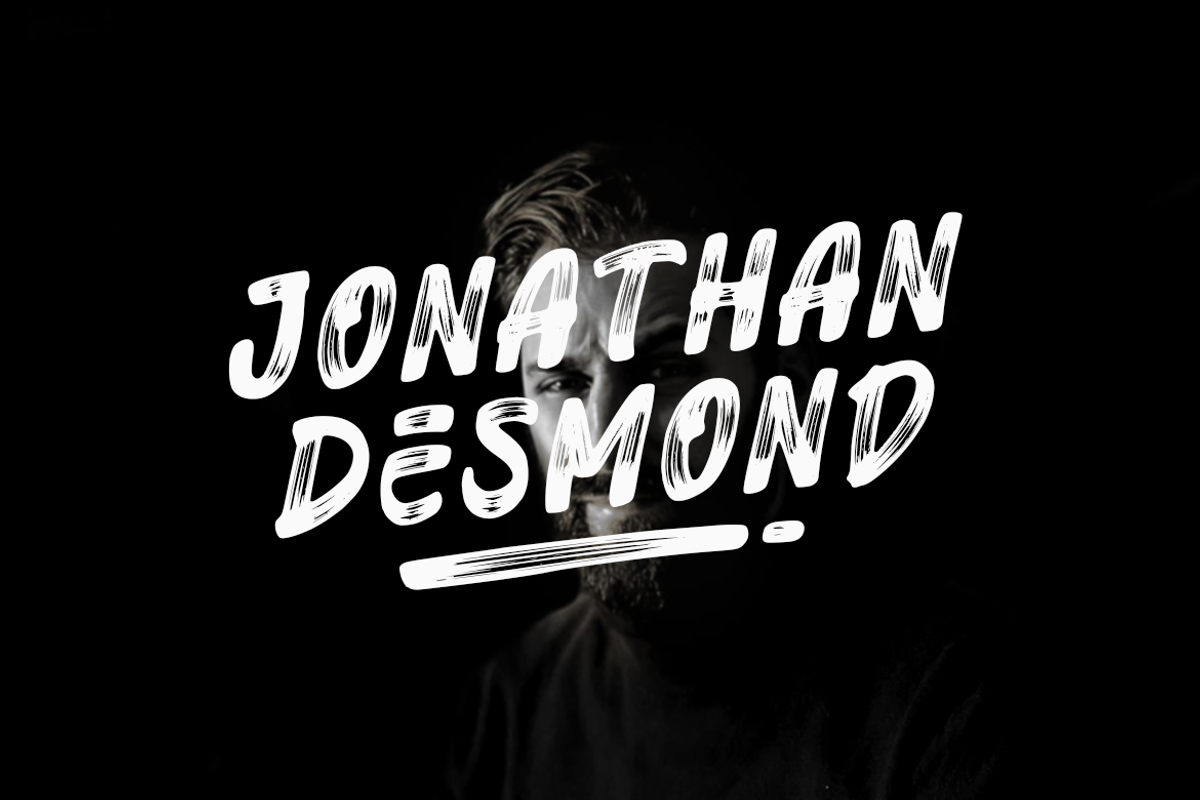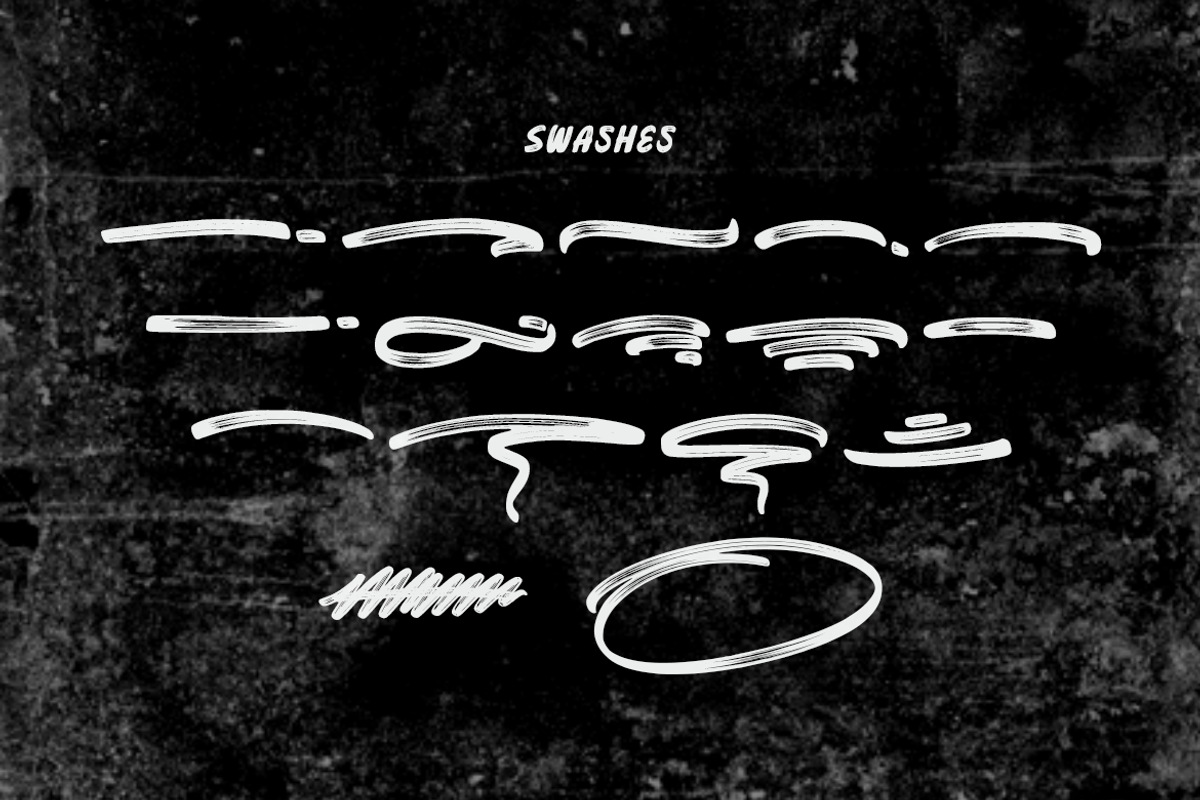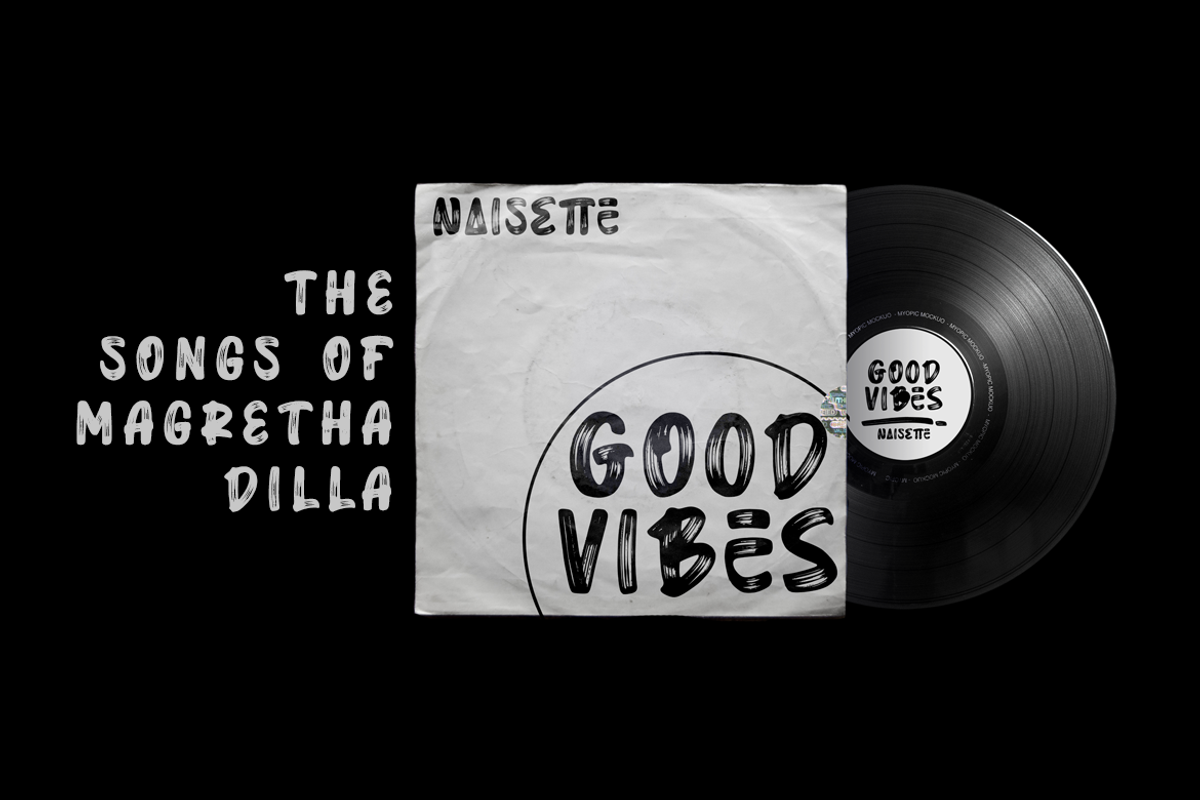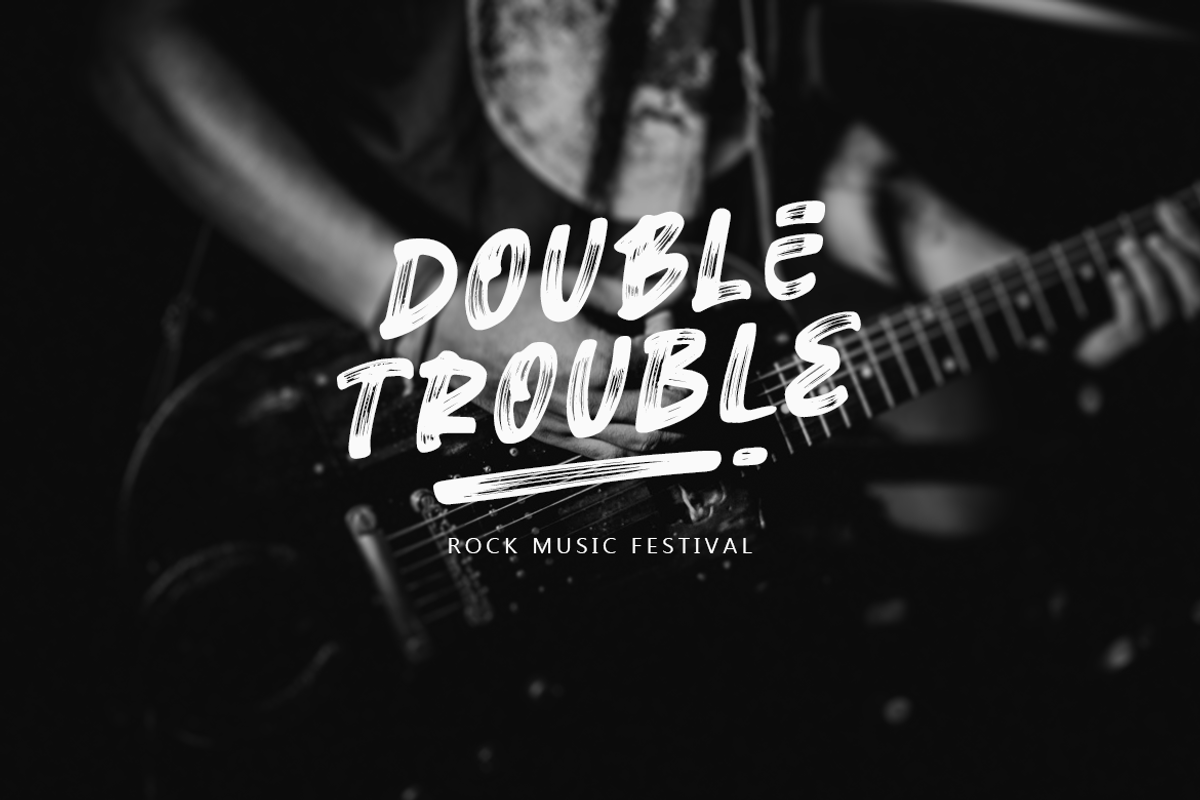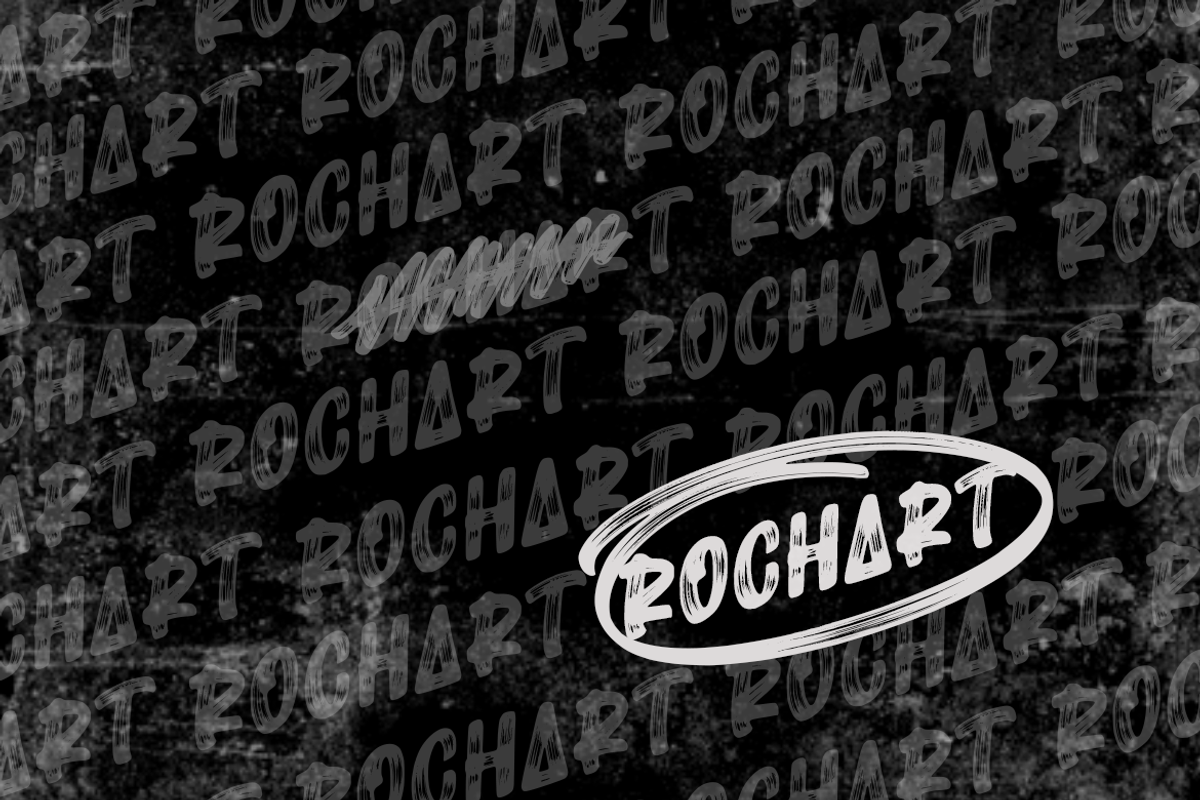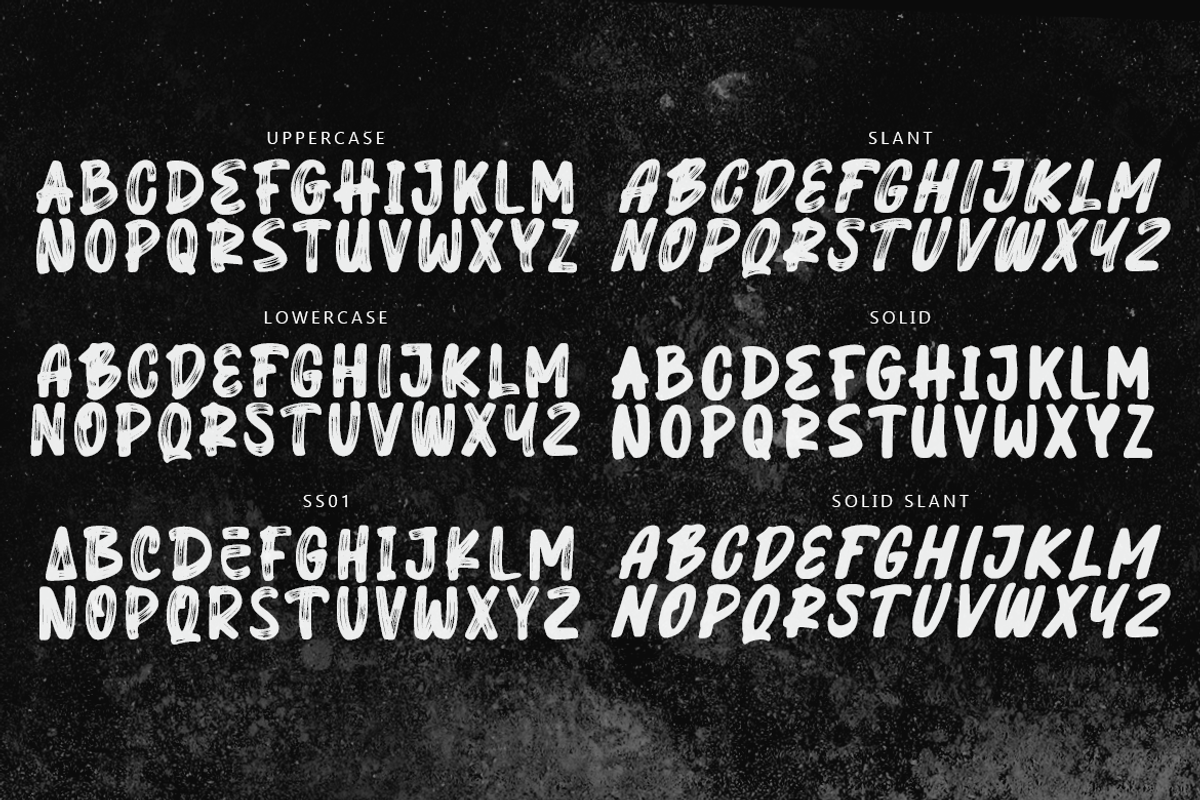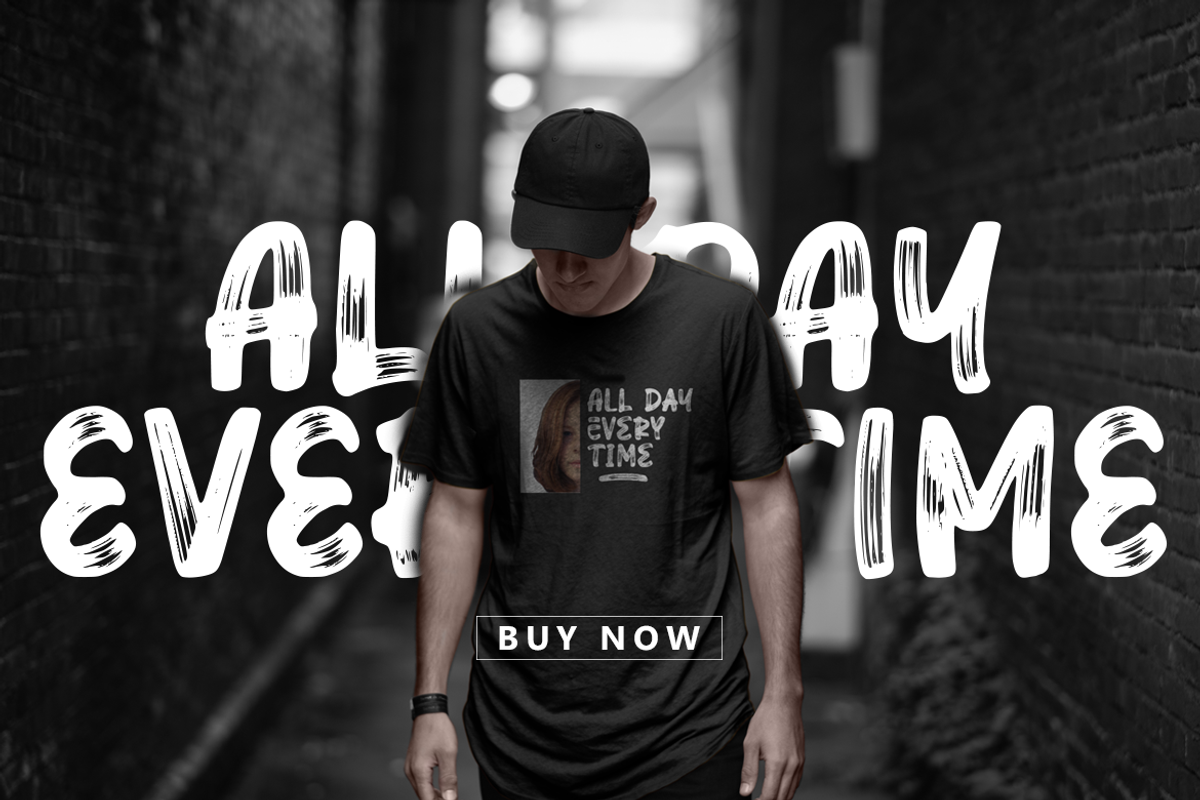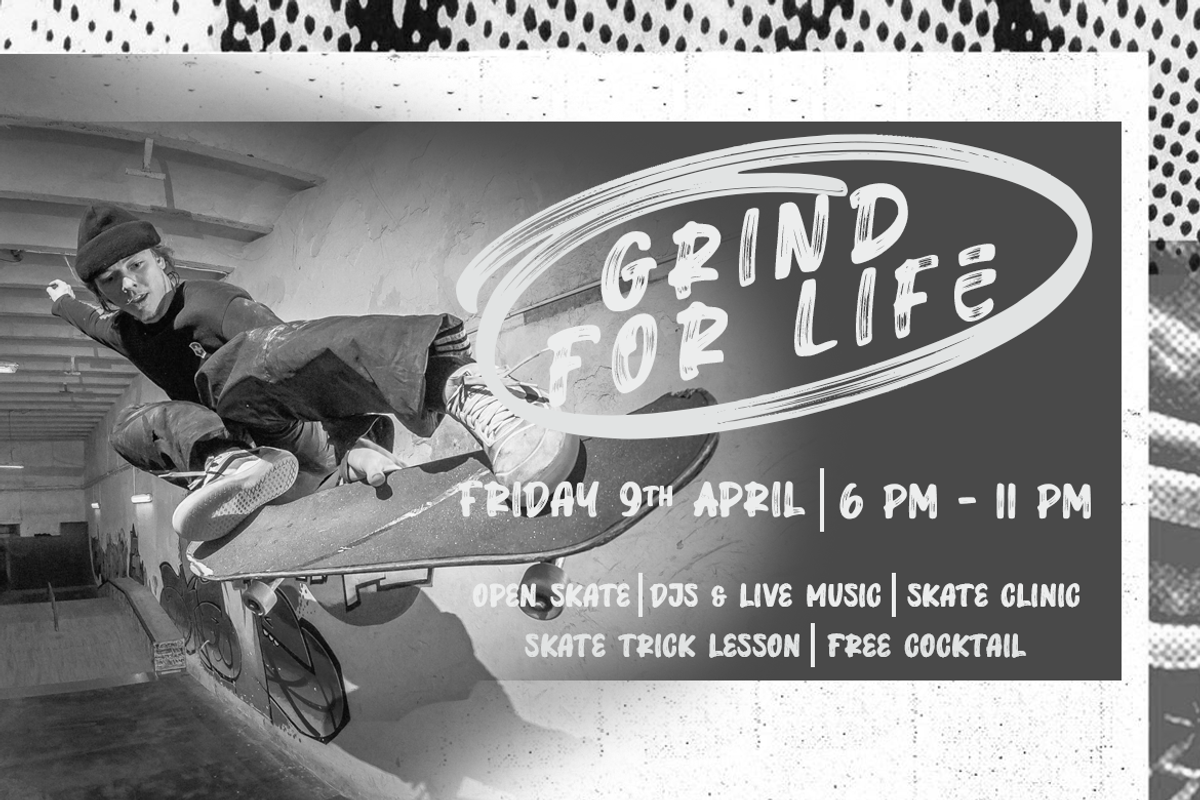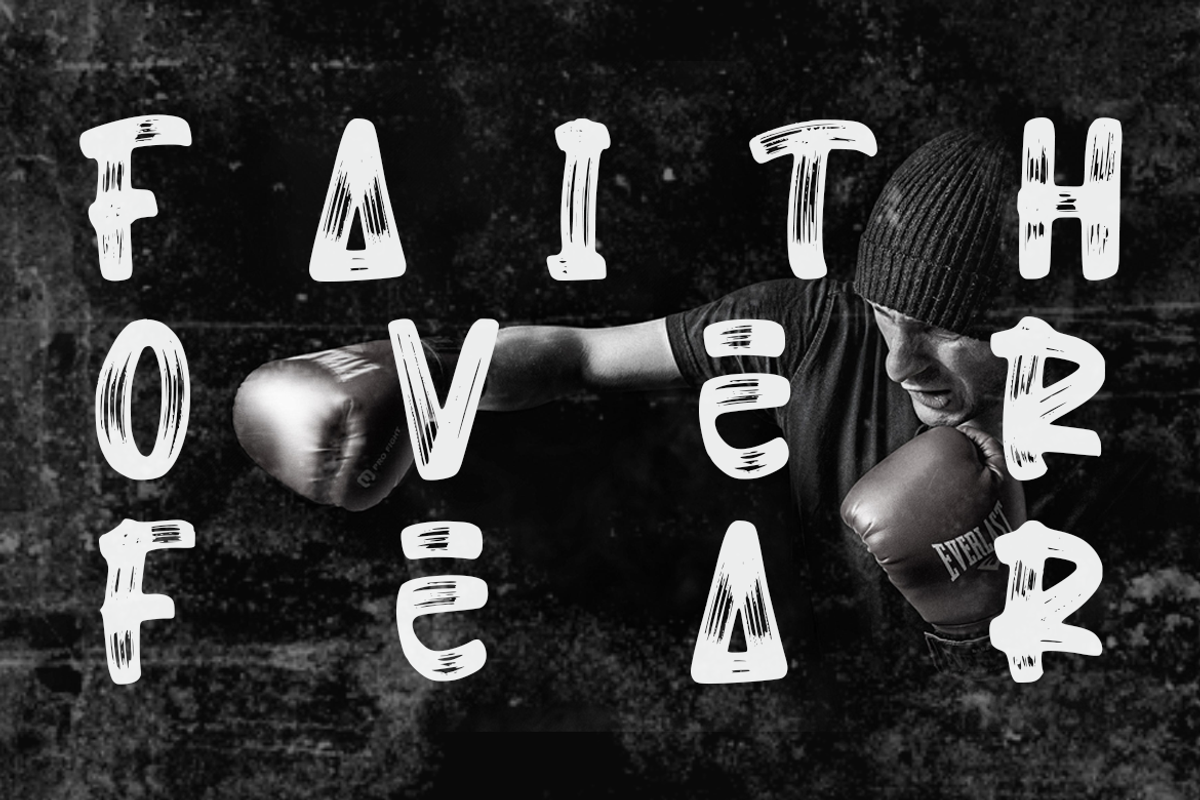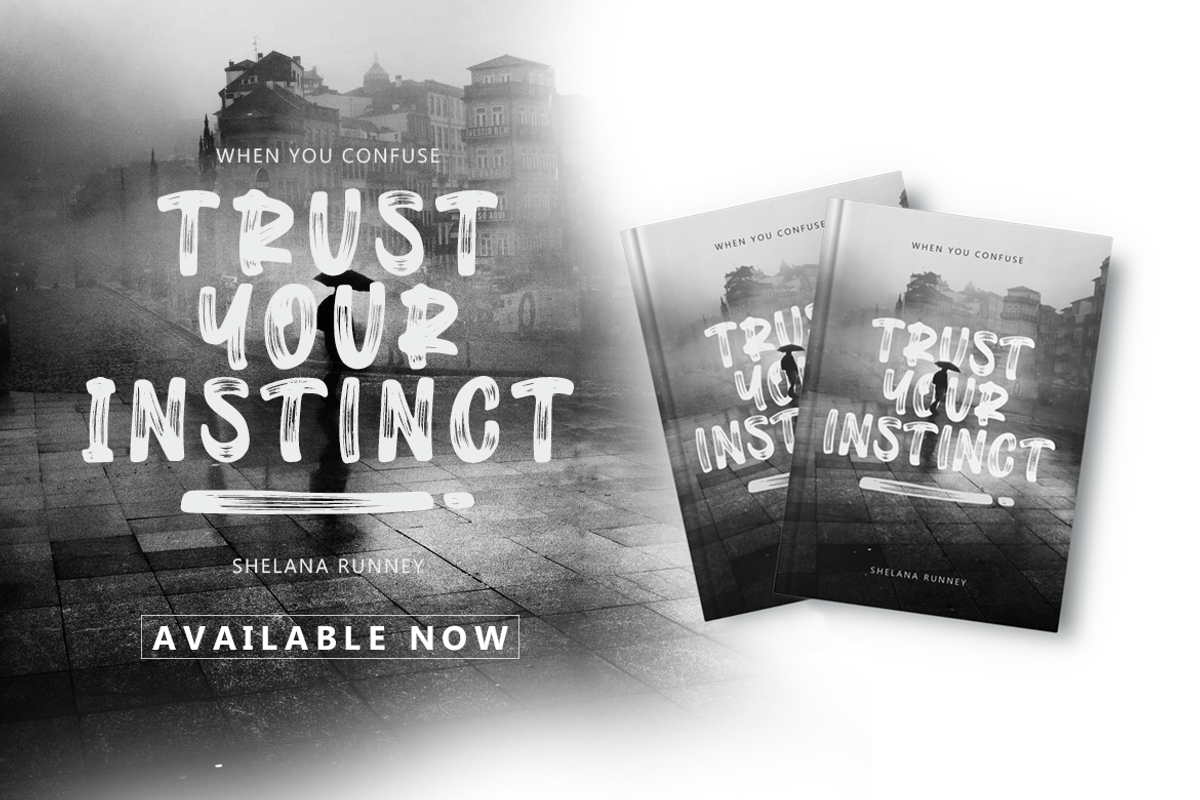
HEAVY BRUSH
Heavy Brush is my hand drawn brush font, and makes with original brush paint, by using high resolution brush stroke images with incredible definition. Its look natural. It will be great for Logotypes, Posters, Digital Lettering Arts, Clean Design, Branding Design, Sign, Merchandise and Social Media Posts.
This font contain of Uppercase, Lowercase, Number, Symbol, Punctuation, also support multilingual and already PUA encoded. And swashes.